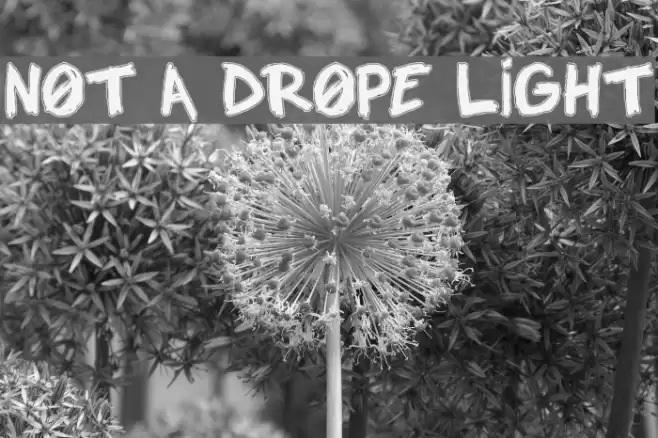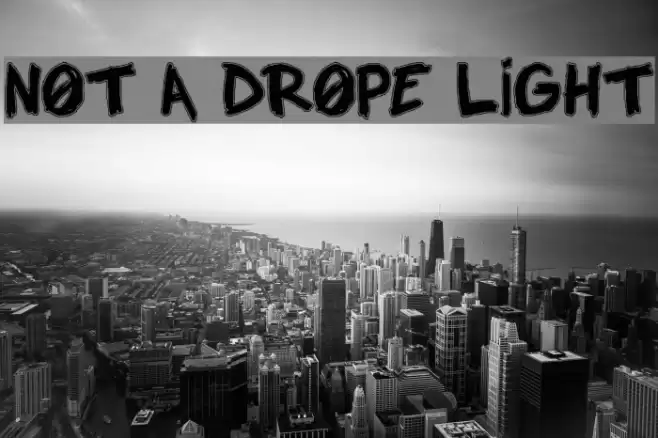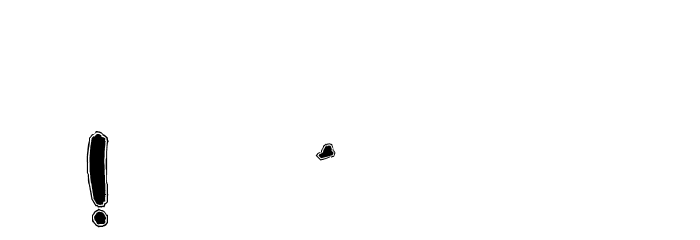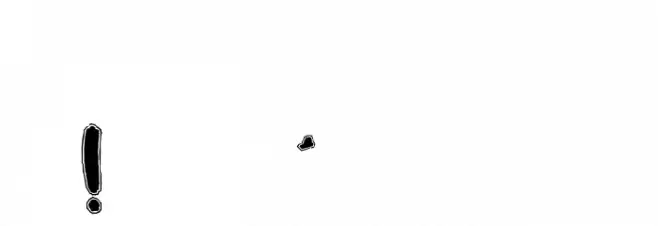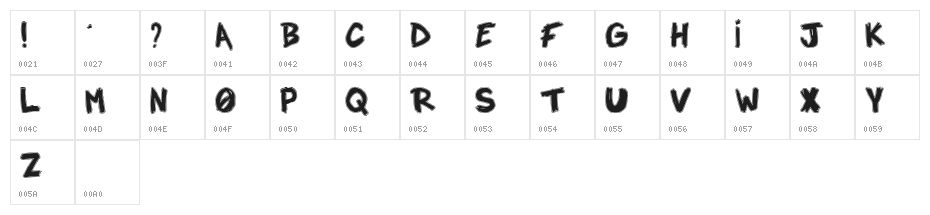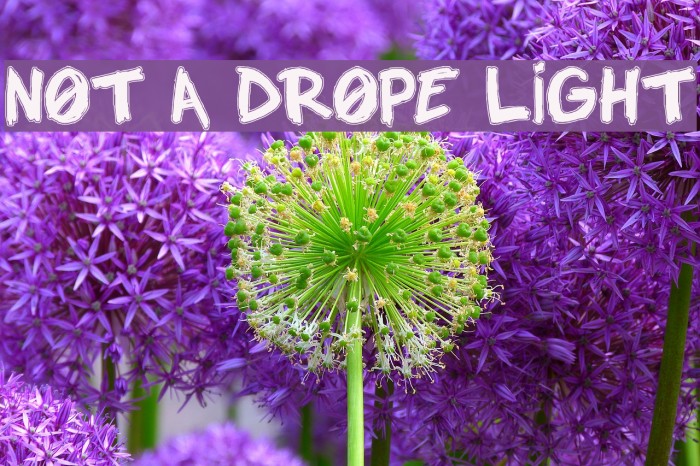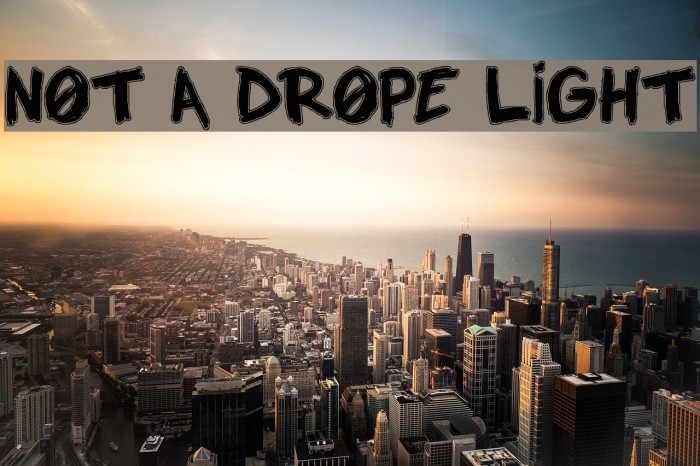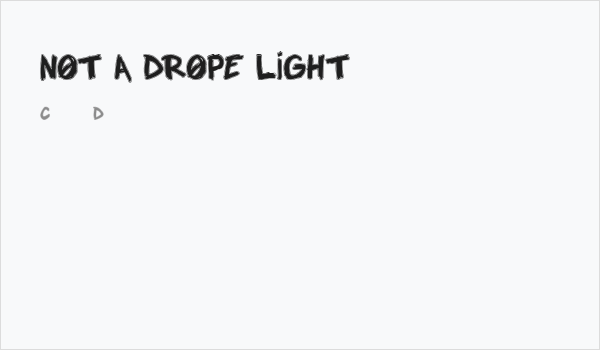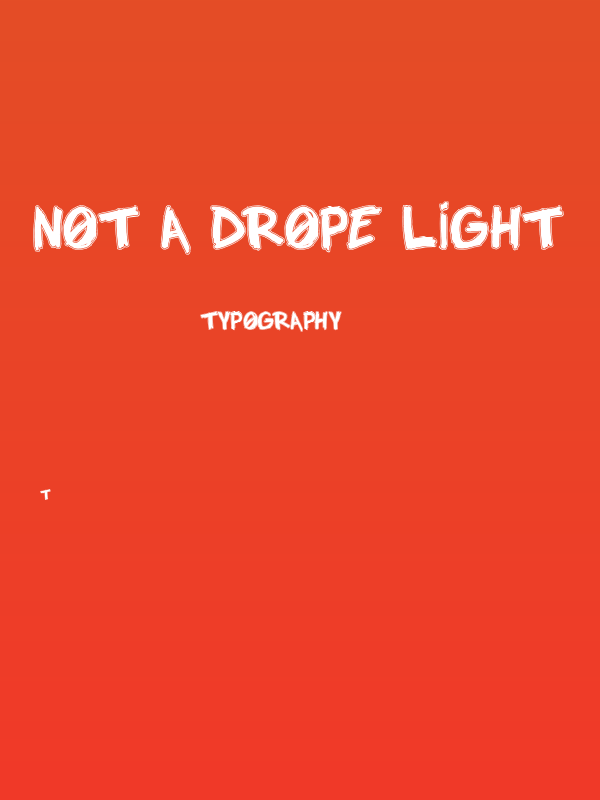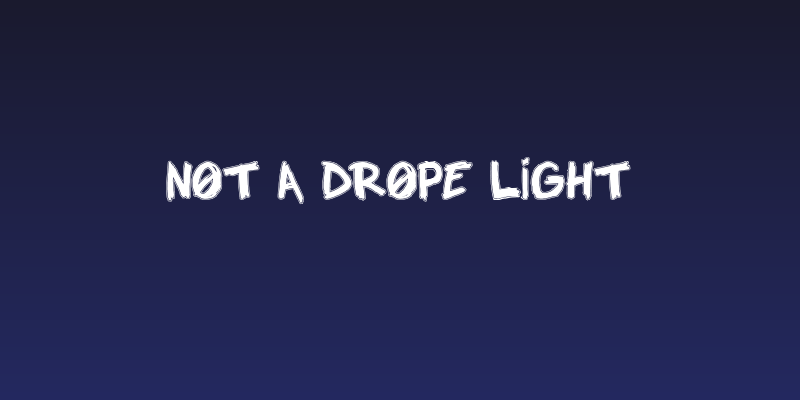
NOT A DROPE LIGHT Font
NOT A DROPE LIGHT Description
This font features a bold, playful style with a hand-drawn appearance. The letters are uppercase and exhibit a slightly irregular, organic shape, adding to the casual and informal feel. The strokes are thick and consistent, with a high contrast between the filled areas and the outlines, giving the font a cartoonish and dynamic look. The spacing between characters is relatively tight, which enhances the cohesive and compact nature of the text. This font is well-suited for projects that require a fun and lively aesthetic, such as children's books, comic strips, or playful branding materials.
A bold, playful, hand-drawn font with a cartoonish style from Uncategorized fonts.
- Proposed Projects: Children's books, comic strips, playful branding, posters, and casual invitations.
- Character Spacing: Tight
- Overall Style: Playful, Cartoonish